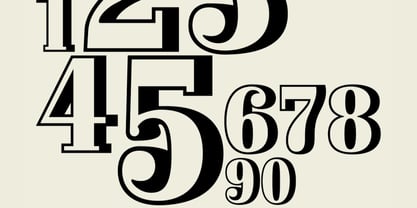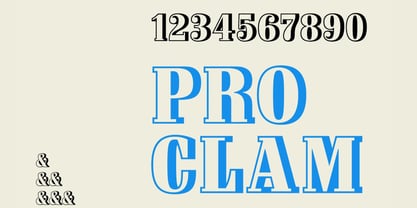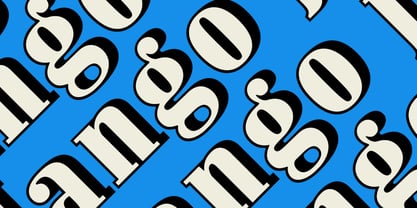
R41 Proclam
R41 Proclam’s Outline style was originally designed by Aldo Novarese for Reber R41 in 1989. This condensed Bodoni is almost timidly hidden by the boldness of its shadow. To enhance its eclectic elegance, R41 developed a Regular version, capable of highlighting its classic beauty, while making it a versatile design for any type of headline or display presentation.